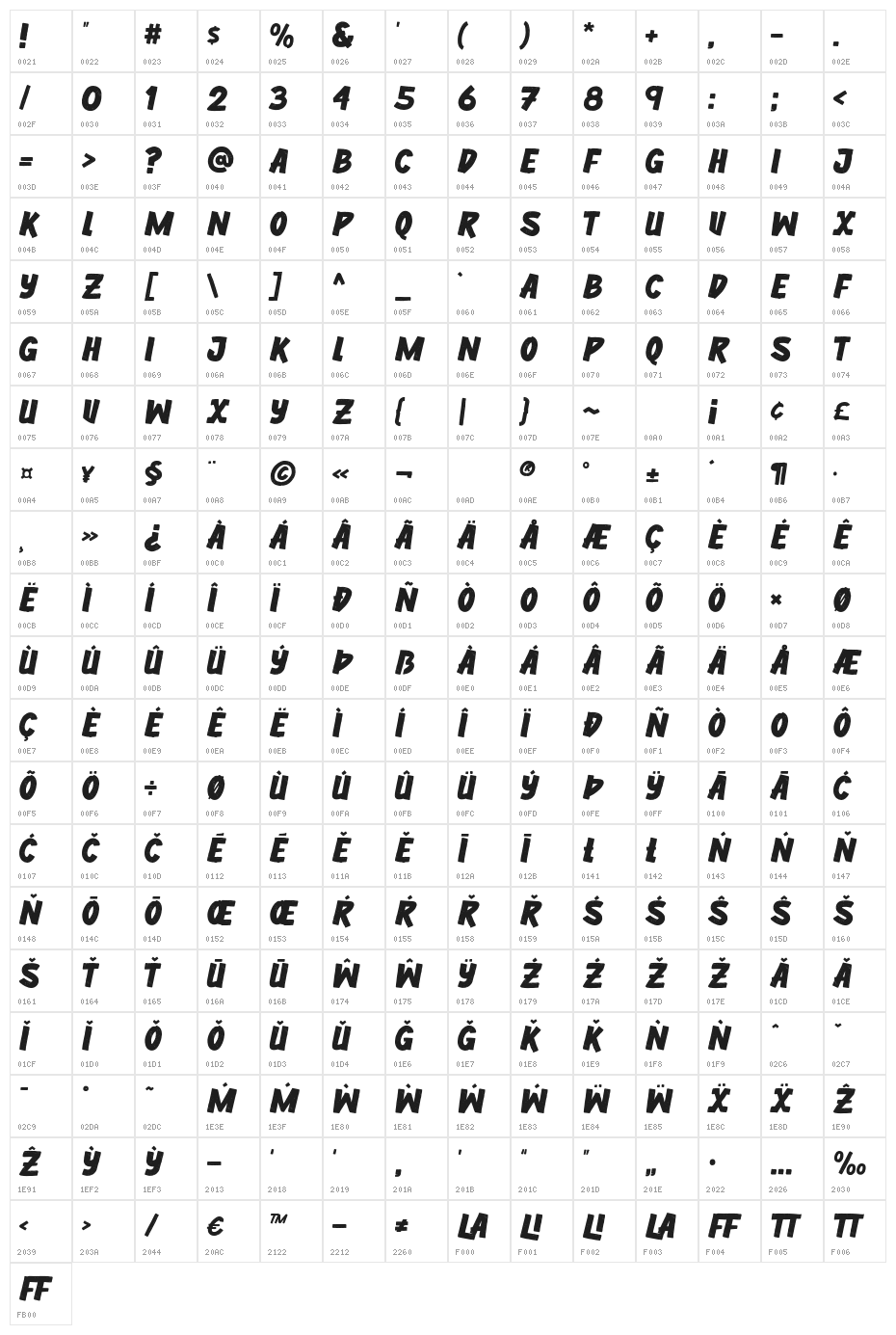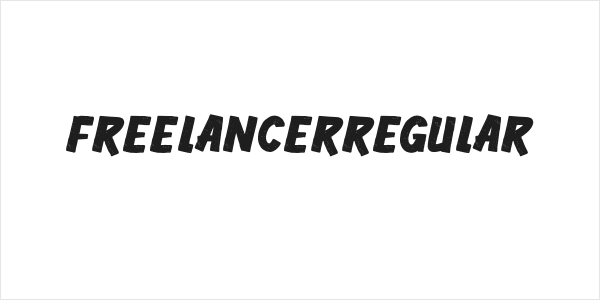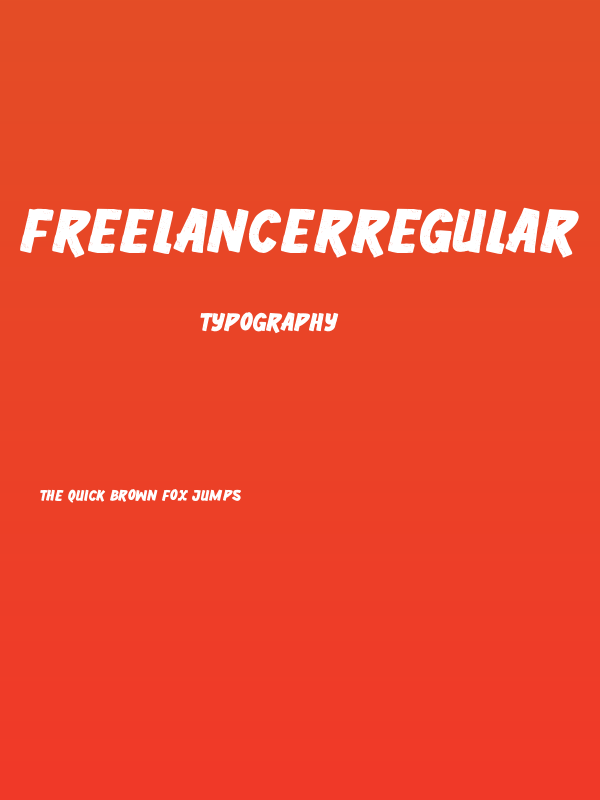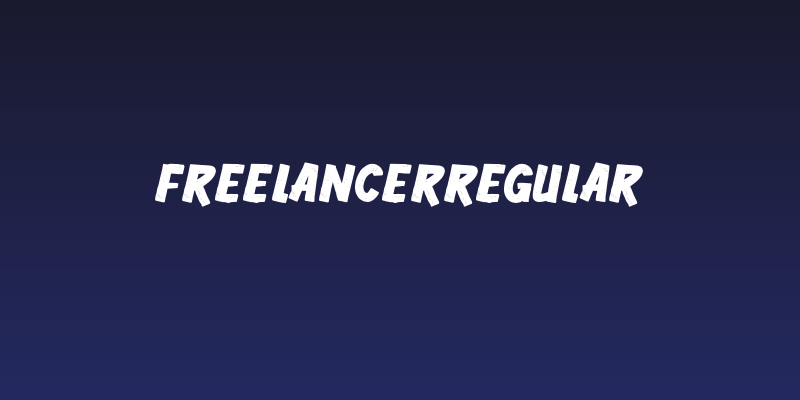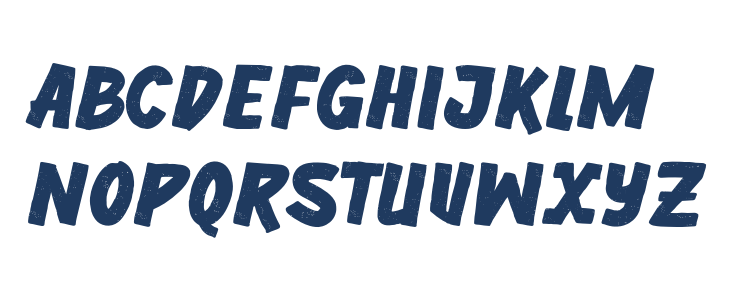
FreelancerRegular Font
FreelancerRegular Description
This font features a bold and dynamic style with a distressed texture that gives it a rugged, handcrafted appearance. The uppercase and lowercase letters are designed with a consistent weight, providing a strong visual impact. The numerals and special characters maintain the same boldness, ensuring uniformity across all glyphs. The font's slightly condensed width allows for efficient use of space, making it suitable for attention-grabbing headlines and titles. Its unique texture adds a vintage or retro feel, making it ideal for projects that require a touch of nostalgia or a handcrafted aesthetic.
| Width | Condensed |
| Overall Style | Vintage |
| Proposed Projects | Ideal for posters, branding, packaging, and any design needing a bold, vintage touch. |